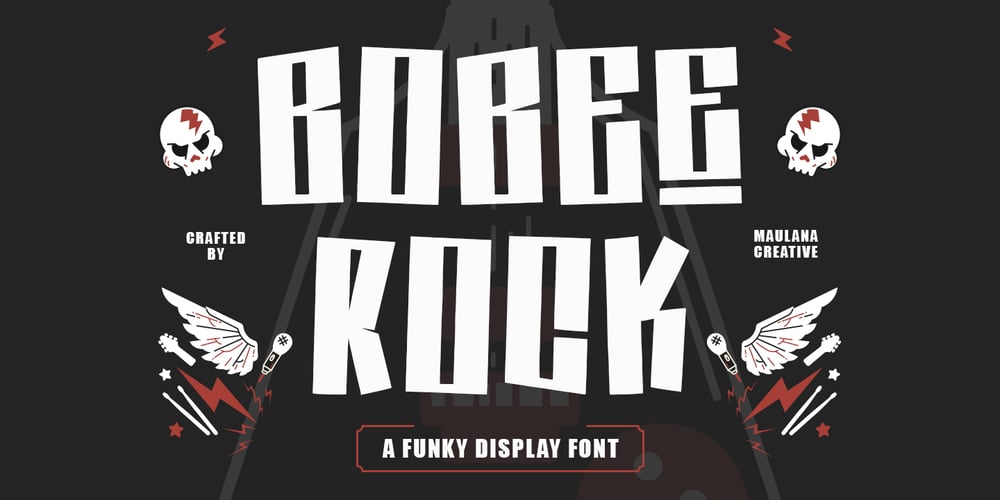
MC Bobee Rock
MC Bobee Rock font
MC Bobee Rock Font Family was designed by Gilang Maulana and published by Maulana Creative. MC Bobee Rock contains 1 styles and family package options. Bobee Rock is a fun style font. With vintage stroke, fun character with alternates. To give you an extra creative work. Bobee Rock font support multilingual language. This font is good for logo design, Social media, Movie Titles, Books Titles, a short text even a long text letter and good for your secondary text font with sans or serif. Make a stunning work with Bobee Rock font.Cheers, Maulana Creative